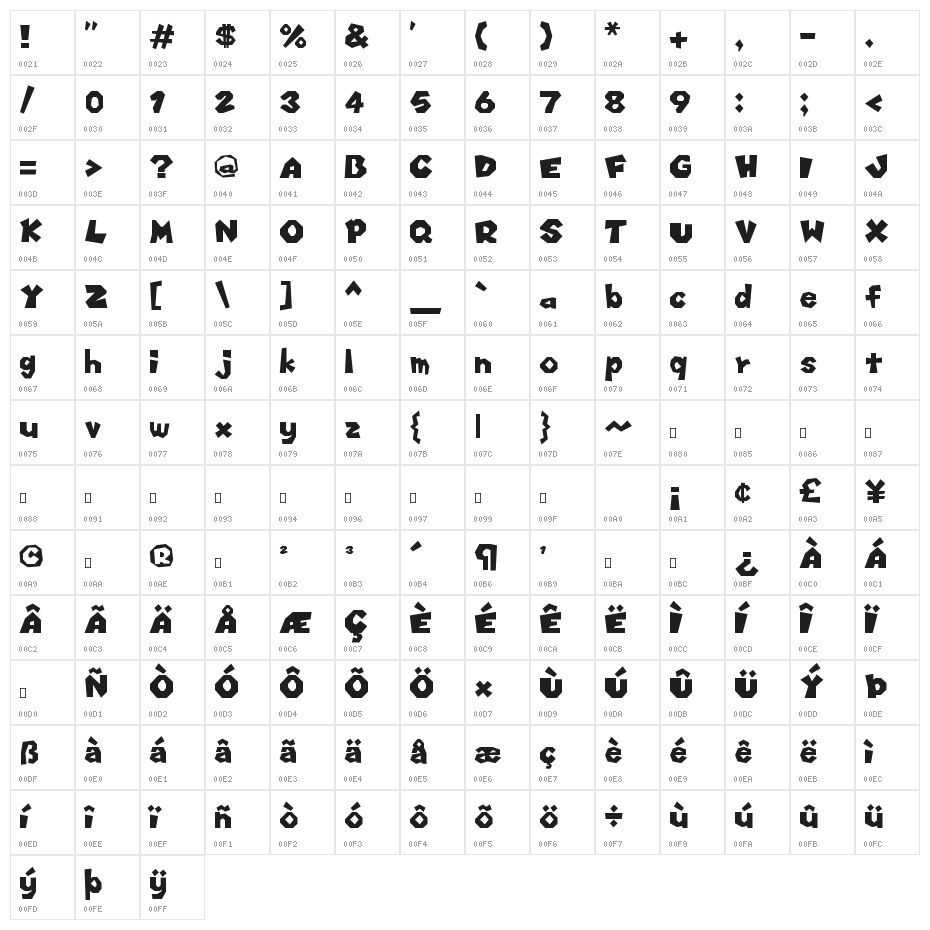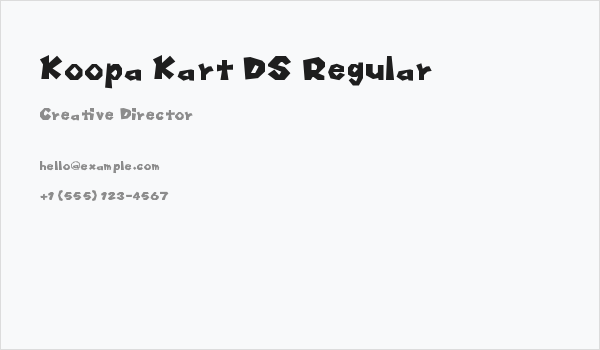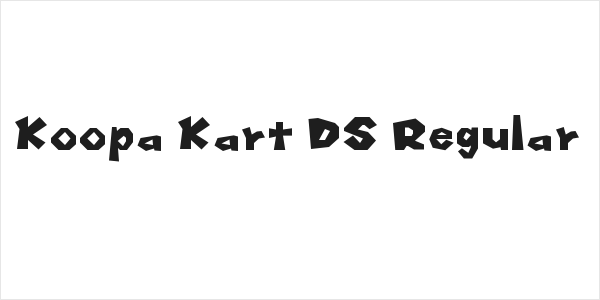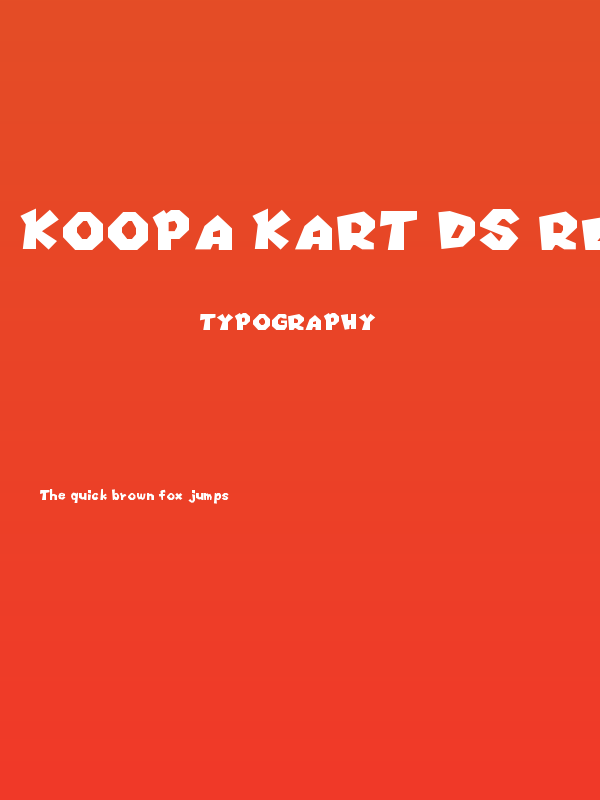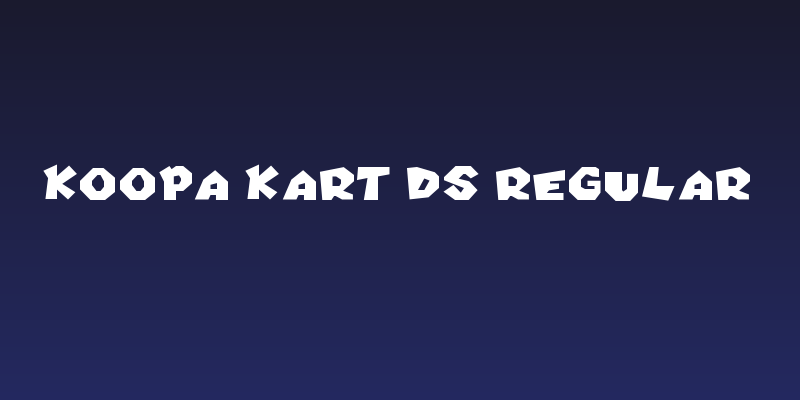
Koopa Kart DS Regular Font
Koopa Kart DS Regular Description
This font features a bold and playful design with a distinctly angular and geometric style. The characters are crafted with sharp, jagged edges, giving them a dynamic and energetic appearance. The uppercase and lowercase letters maintain a consistent style, with each character exhibiting unique angles and cuts that create a sense of movement. The numbers and special characters follow the same design principles, ensuring a cohesive look across all glyphs. This font's boldness and unique character shapes make it stand out, making it ideal for projects that require a fun and eye-catching typeface.
| Overall Style | Playful and Energetic |
| Proposed Projects | Ideal for video game graphics, children's book covers, posters, and branding for playful or adventurous themes. |